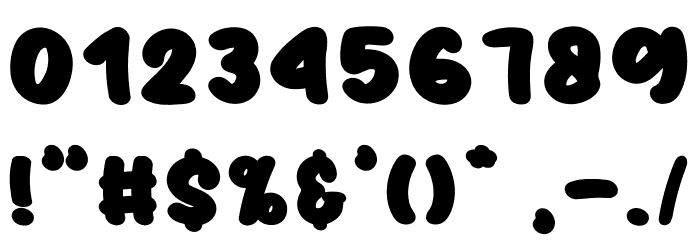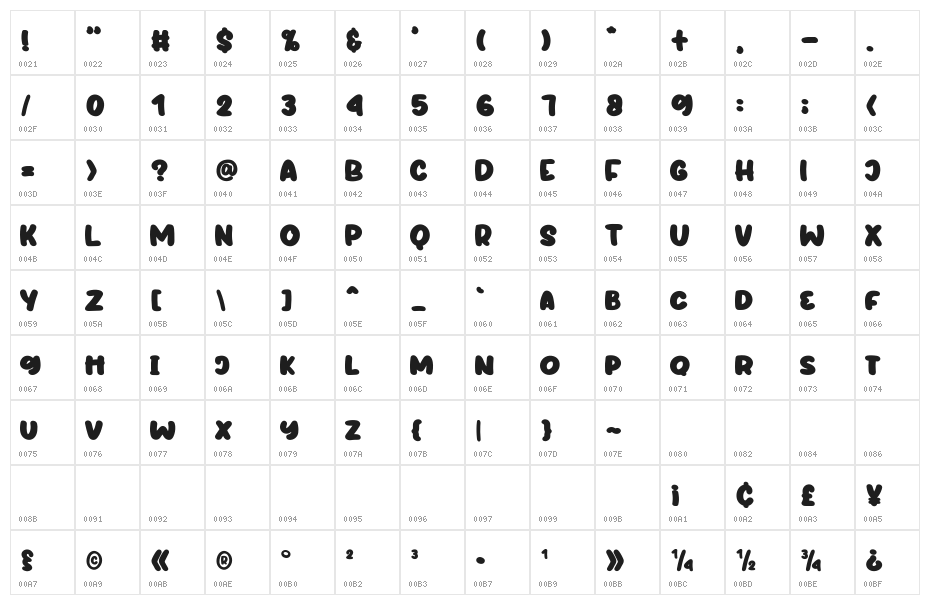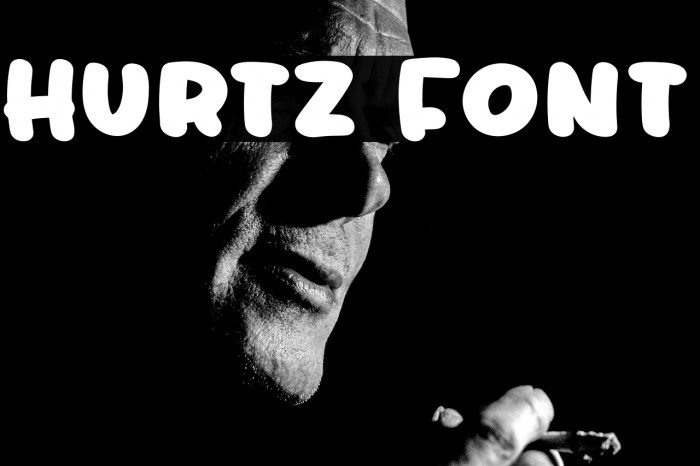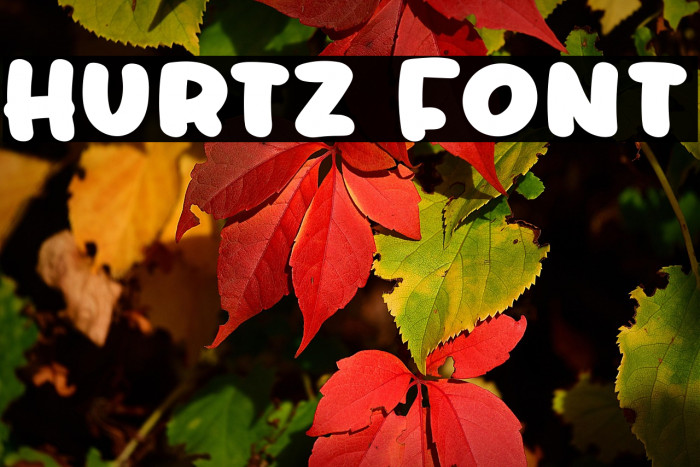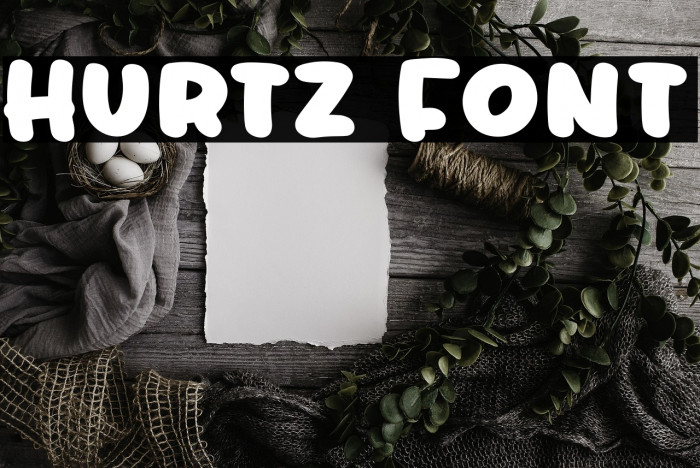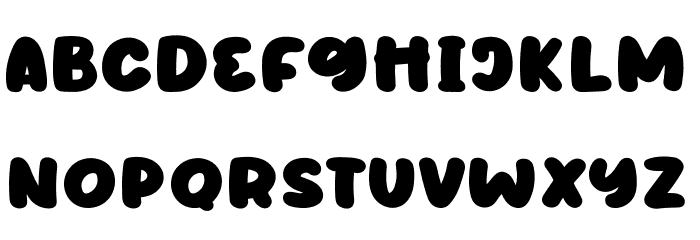
Hurtz Font
Hurtz Description
This font features bold, rounded characters with a playful and informal style. The letters are thick and have a consistent weight throughout, giving them a strong presence. The rounded edges and bubbly appearance contribute to a friendly and approachable look. The characters are evenly spaced, ensuring readability while maintaining a cohesive visual flow. The font includes both uppercase and lowercase letters, numerals, and a variety of special characters, making it versatile for different design needs. Its unique style makes it suitable for projects that require a touch of whimsy and fun.
| Proposed Projects | Ideal for children's books, playful branding, posters, and social media graphics. |